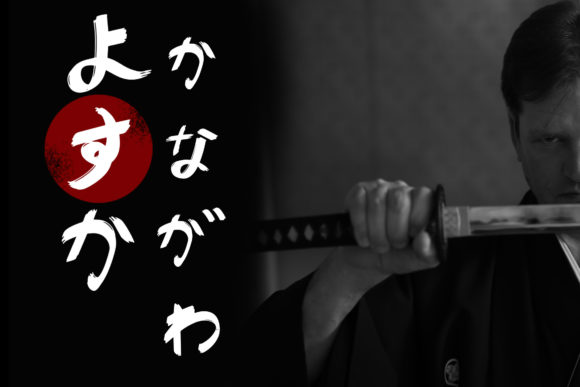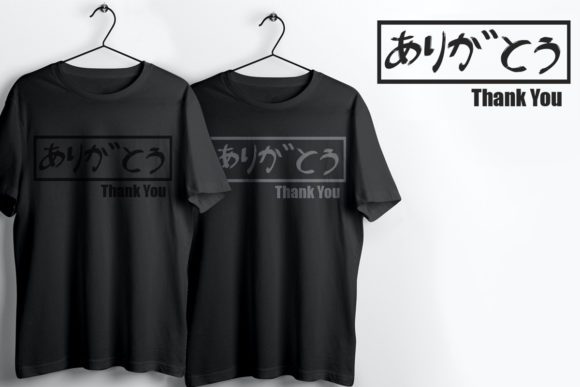
Japan Hiragana Font
Japan Hiragana is a unique handwritten font inspired by original Japanese fonts combined with a stylish brush touch. Use it to design t-shirts, posters, web, tours, and others!